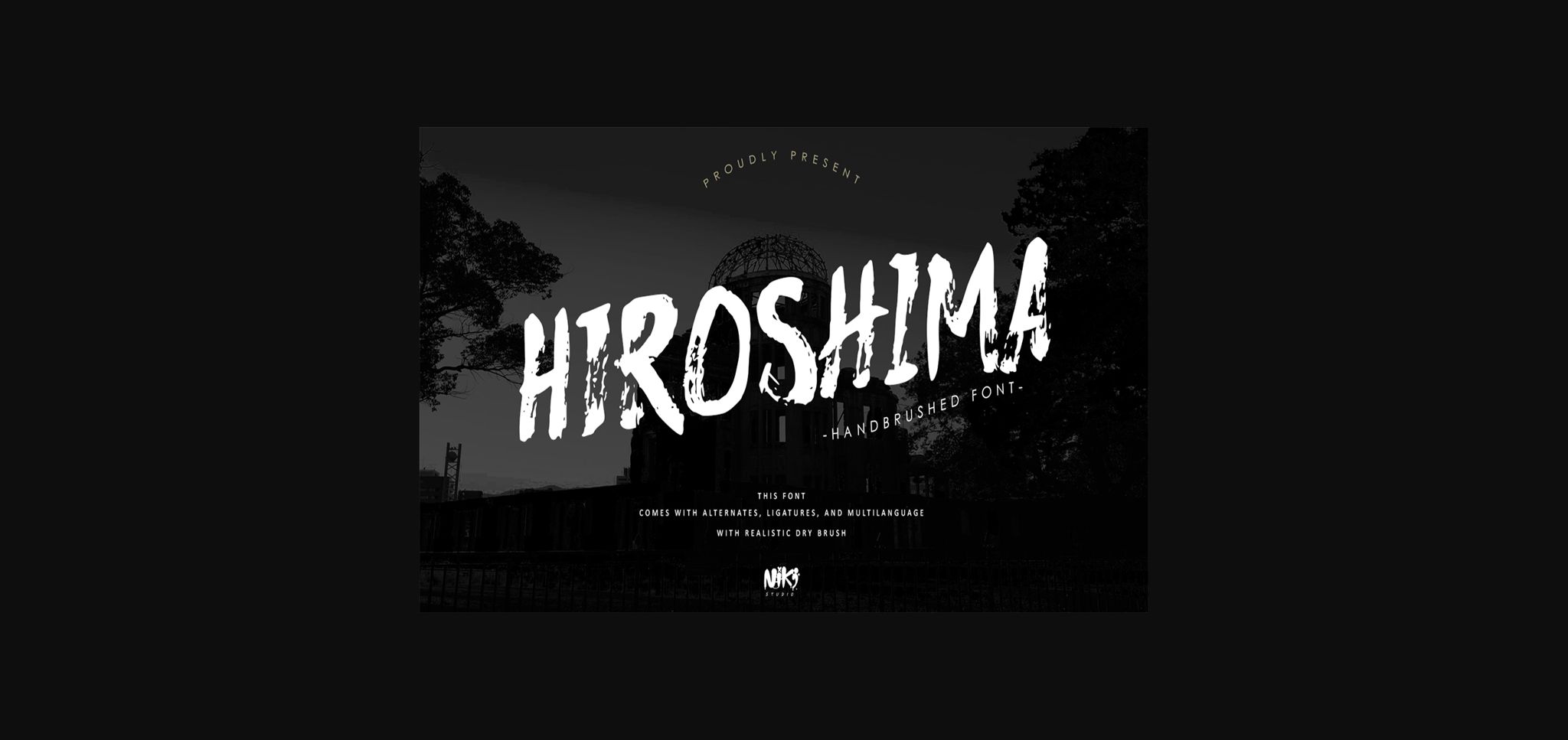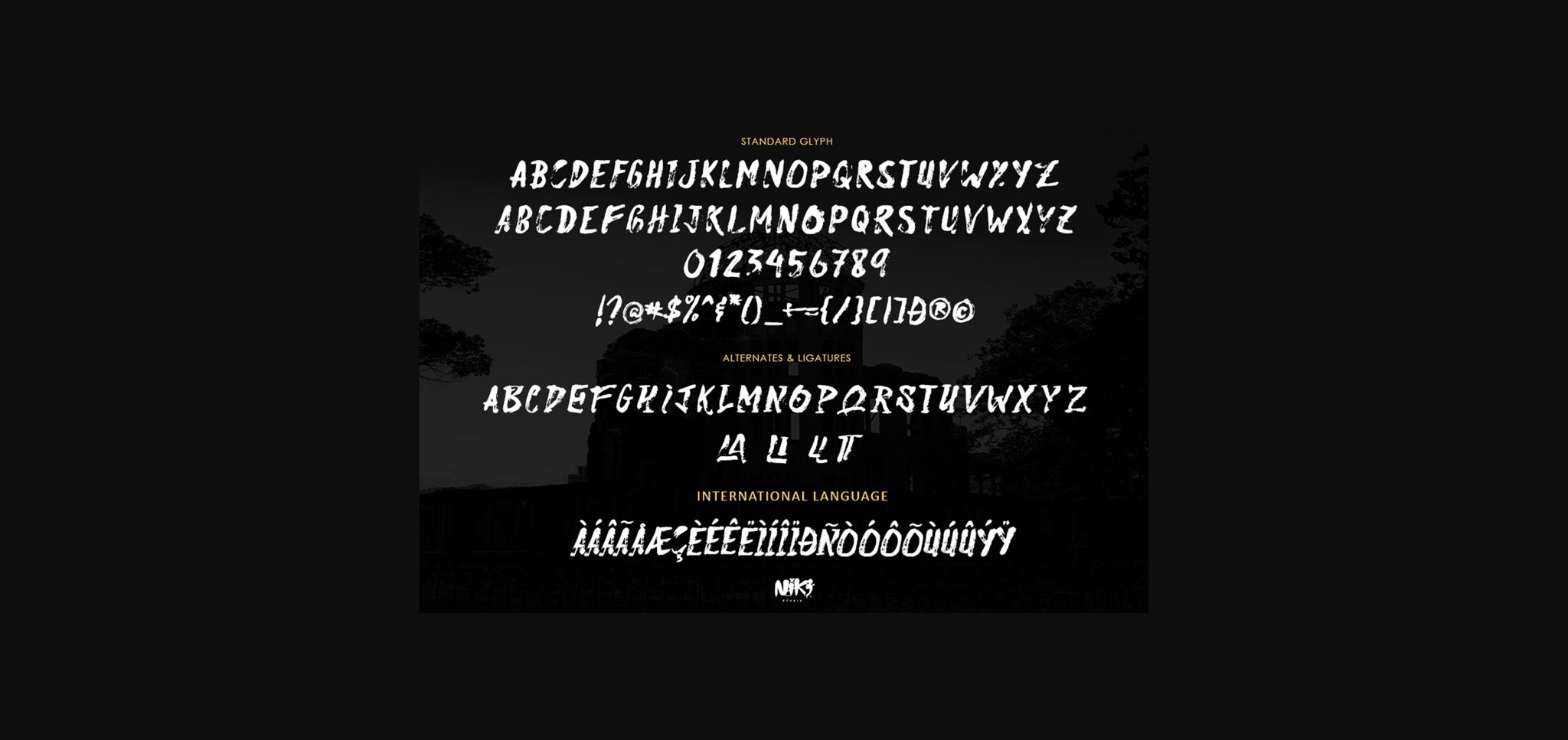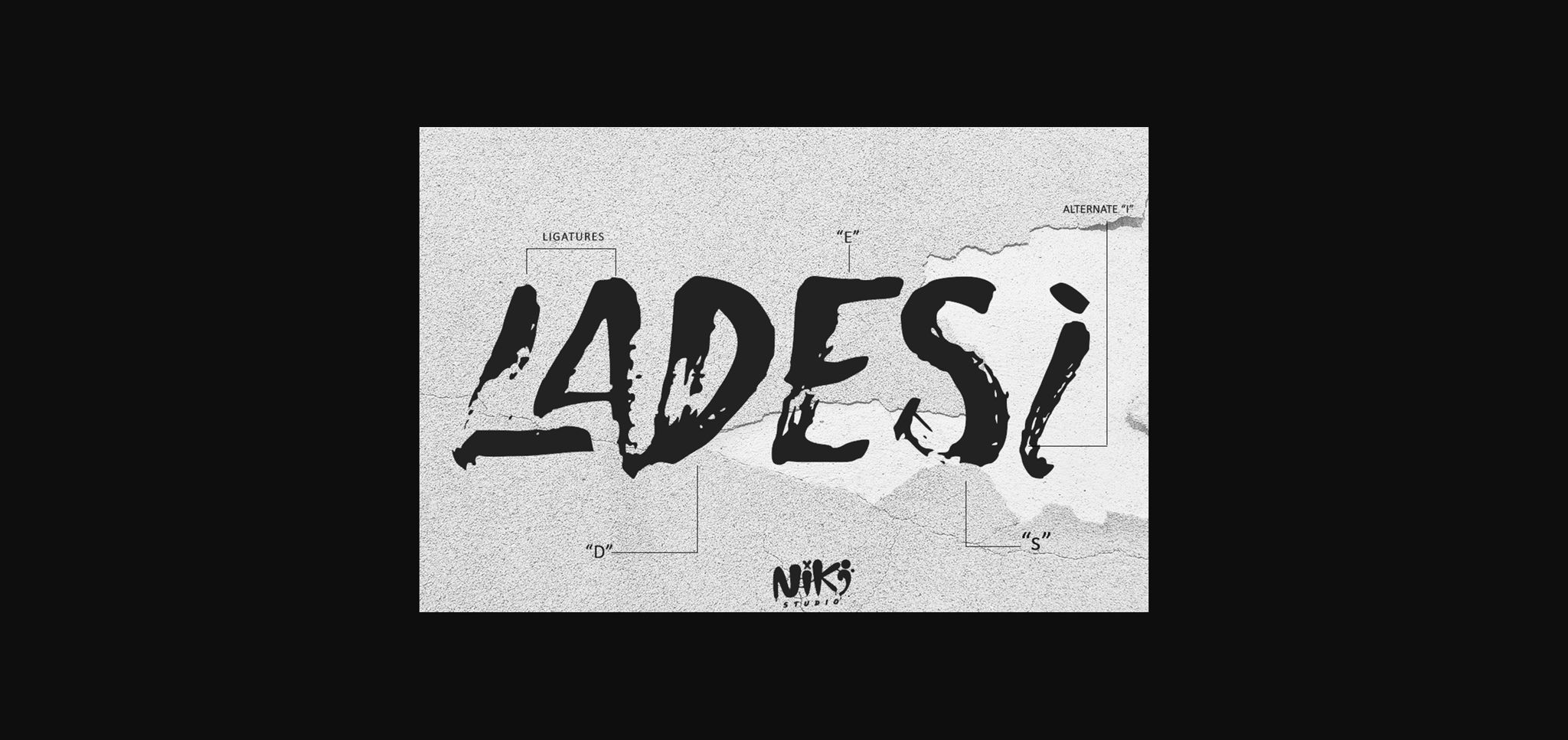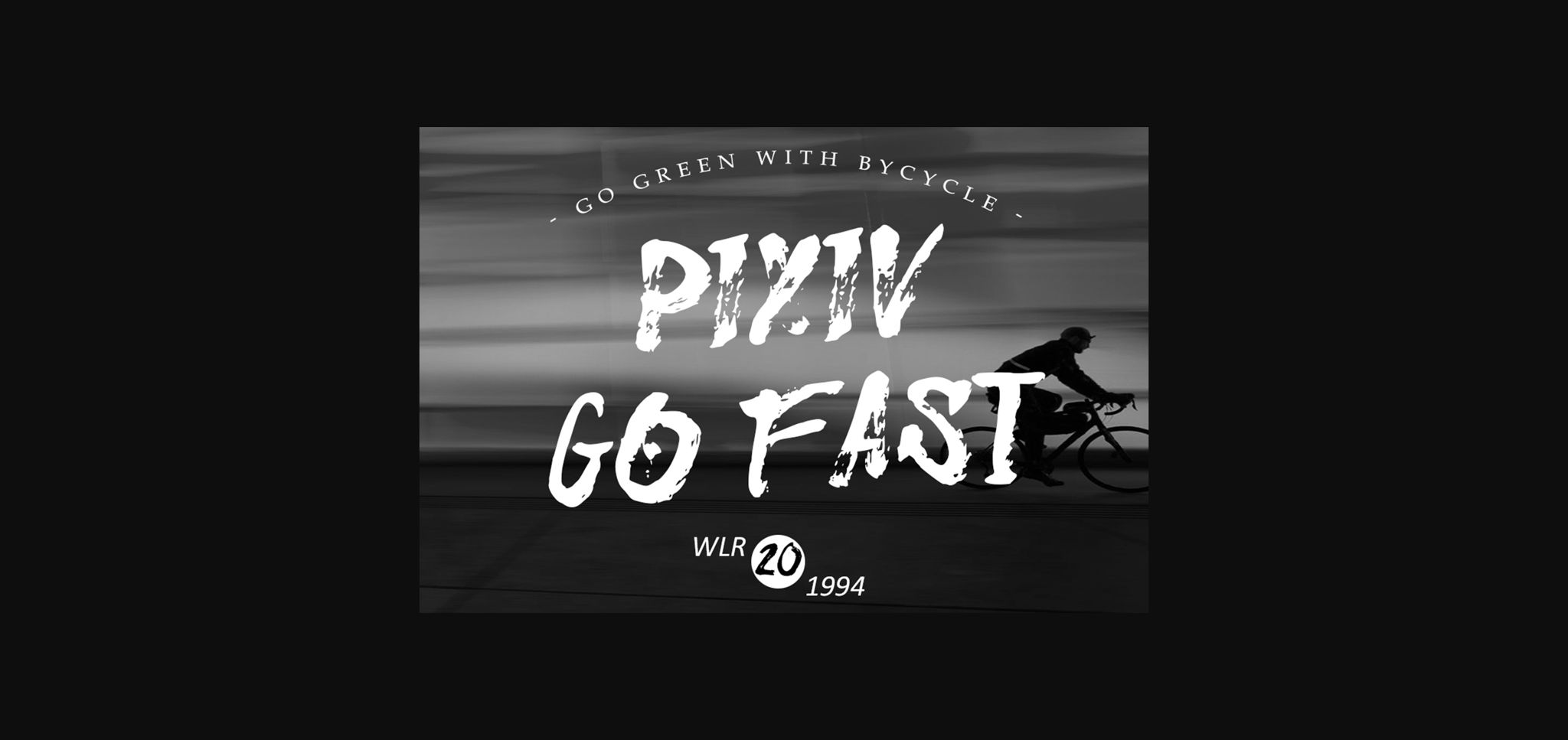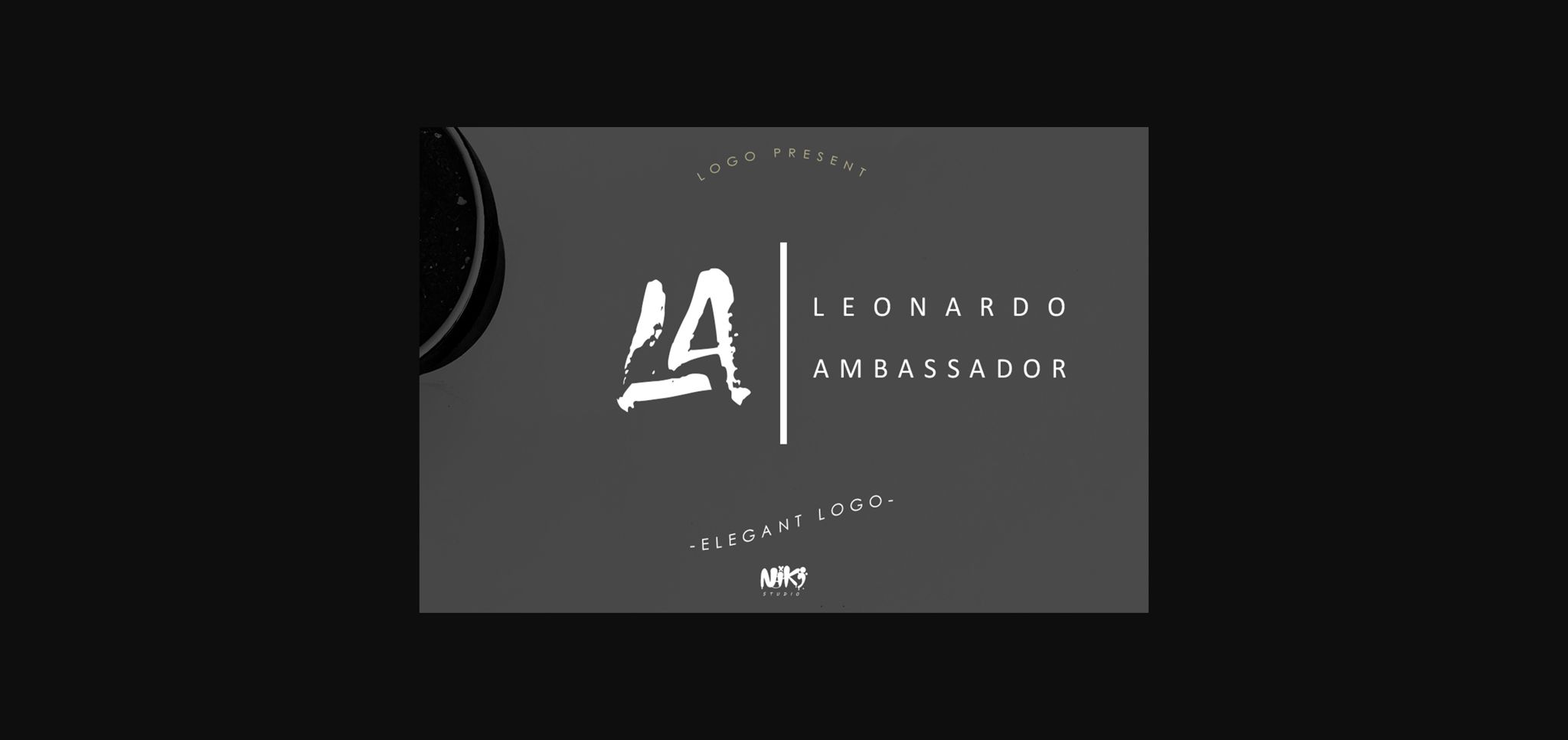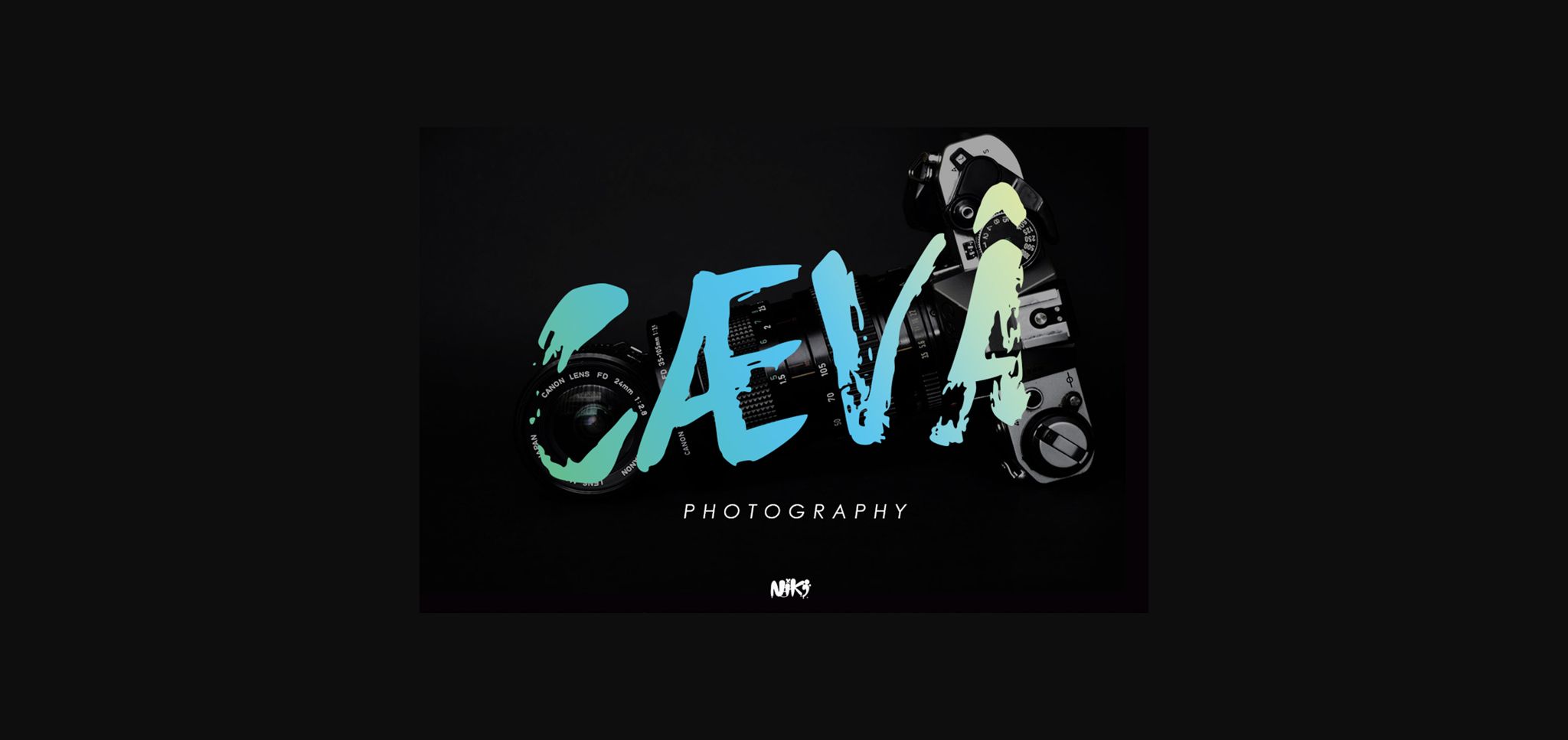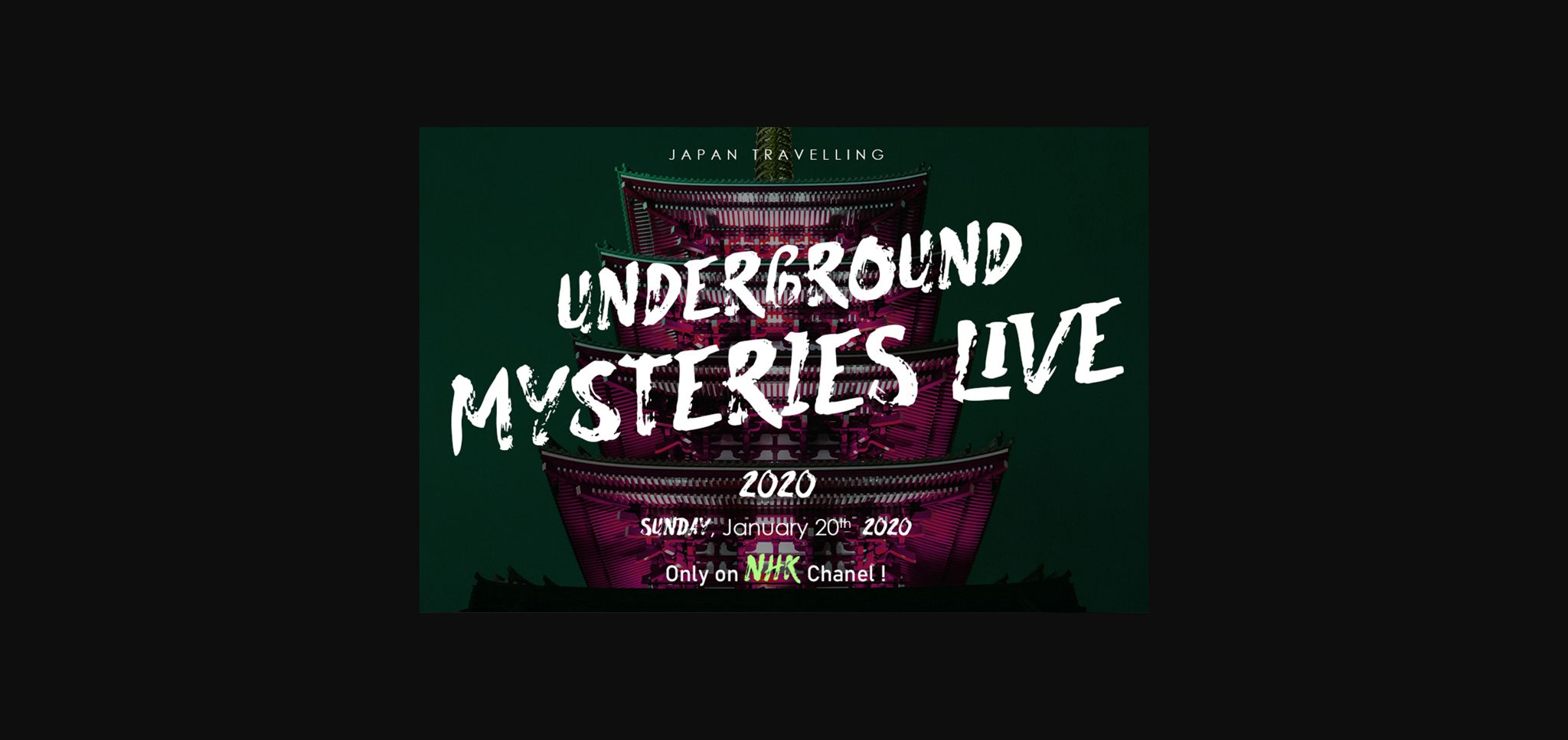
HomeSans Serif FontsHiroshima Font Sans Serif Fonts Hiroshima Font FacebookXPinterestWhatsApp 1 of 9 ... Hiroshima Font Poster 2... Hiroshima Font Poster 3... Hiroshima Font Poster 4... Hiroshima Font Poster 5... Hiroshima Font Poster 6... Hiroshima Font Poster 7... Hiroshima Font Poster 8... Hiroshima Font Poster 9... About Hiroshima Font Hiroshima is a realistic hand-brushed font, featuring natural and authentic lettering and some adventurous alternates and ligatures. DOWNLOAD NOW People also explored Grahamo Font Billion Times Font Alisabela Brushley Font Ravilailey Font Alenikh Sports Font Kaeshad Cuckoo Bird Font Happily Holiday Font Nietha Font 356 0 TagsHiroshima Font Previous articleBolula FontNext articleBéton Font LEAVE A REPLY Cancel reply Comment: Please enter your comment! Name:* Please enter your name here Email:* You have entered an incorrect email address! Please enter your email address here Website: Save my name, email, and website in this browser for the next time I comment. Personal Use Free Pridaem Cooper Personal Use Free Read more about this font Frozdotre Personal Use Free Read more about this font Happy Rabbit Personal Use Free Read more about this font Cheese Matcha Font Personal Use Free Read more about this font BLOG Transform Your Website: Elevate Your Typography with 7 Best Web Font Generators Are you ready to transform your website's typography from ordinary to extraordinary? Great! Today, we're diving into the world of web font generators, which... How to Cut Any Font on Cricut: Convert a Font to SVG (Free) Exploring Font Trends Top 7 Google Fonts Alternatives for Faster and Privacy-Friendly Web Design (2025)